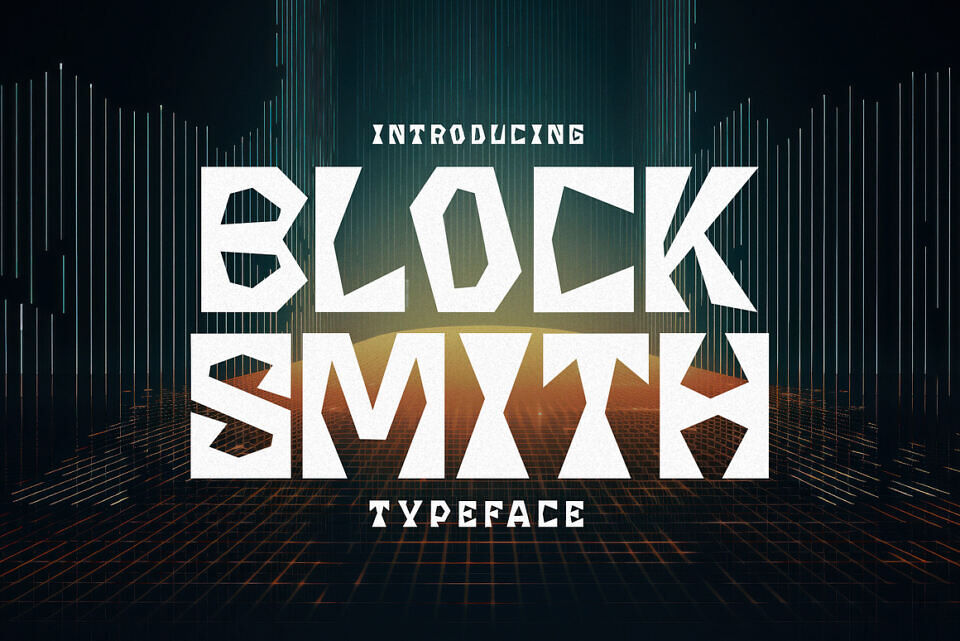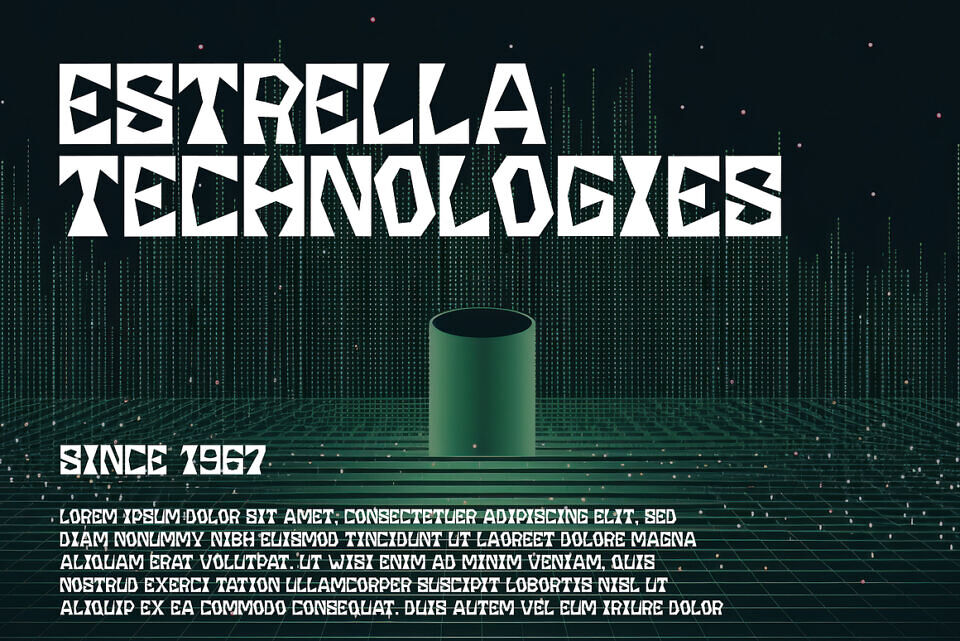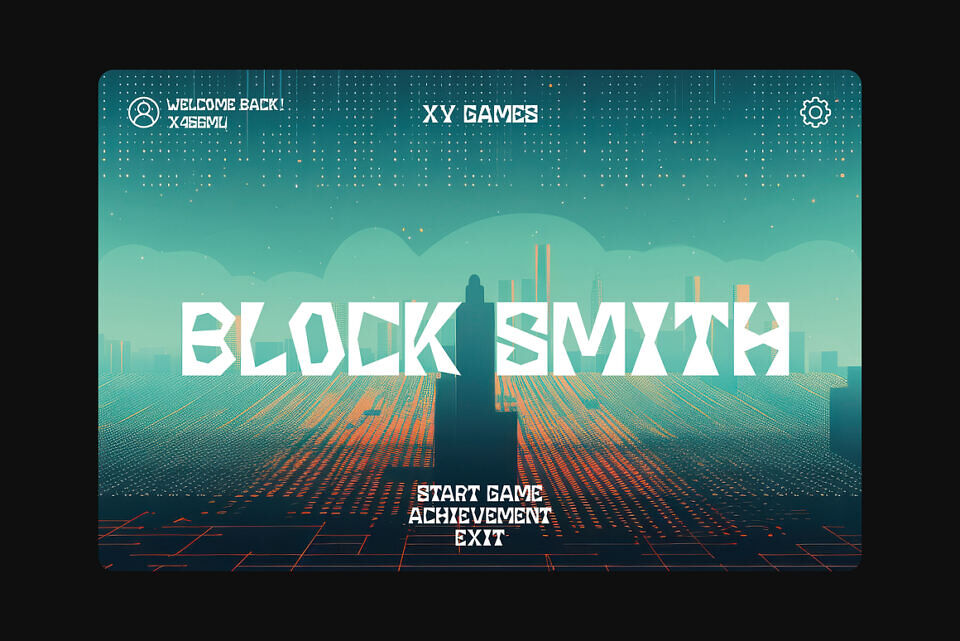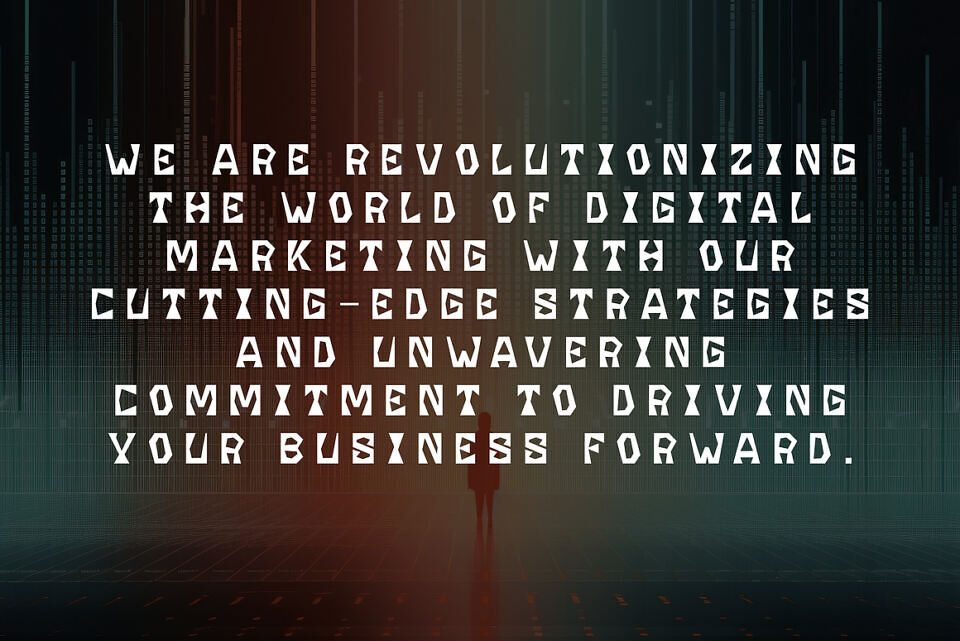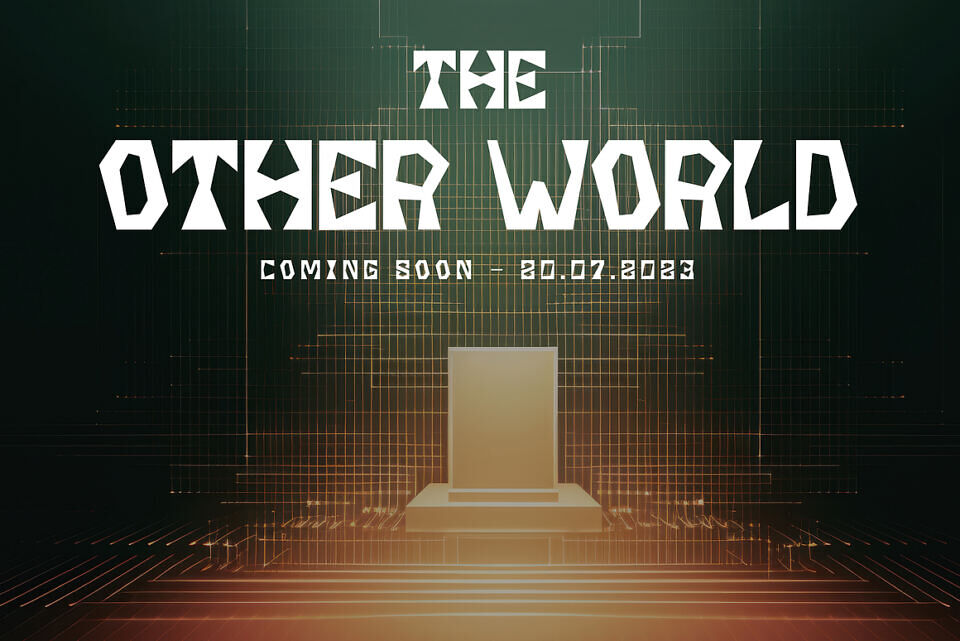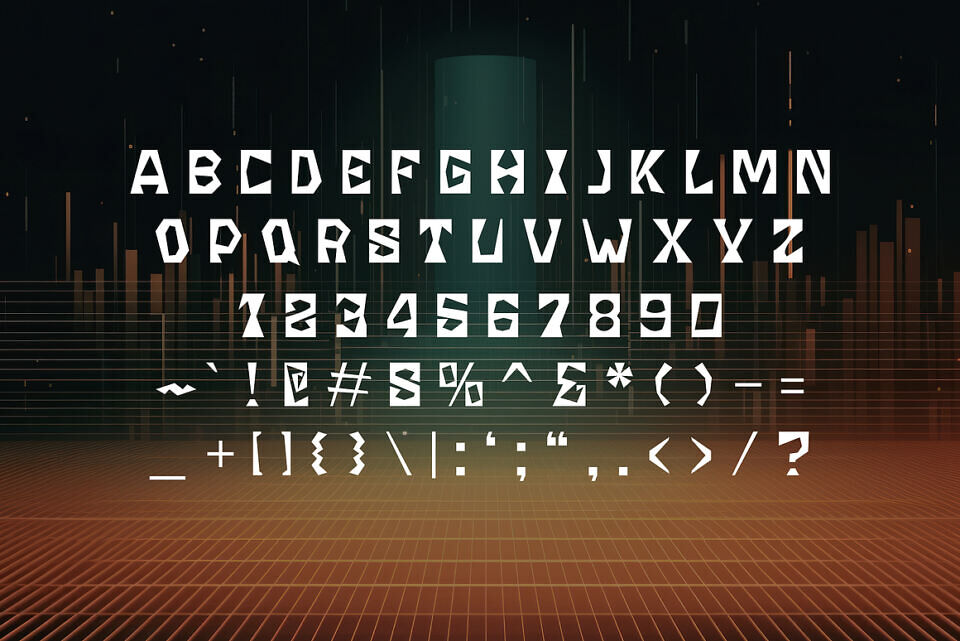
Blocksmith Font
Introducing Blocksmith, the epitome of boldness and bulk in the world of typography! Designed to captivate attention and make a powerful statement, Blocksmith is a font that exudes strength and confidence. Its robust and sturdy letterforms command attention with their substantial weight and commanding presence.
Each character is meticulously crafted, showcasing a perfect balance of boldness and readability. Whether you need to create eye-catching headlines, attention-grabbing posters, or impactful branding materials, Blocksmith is your go-to font.